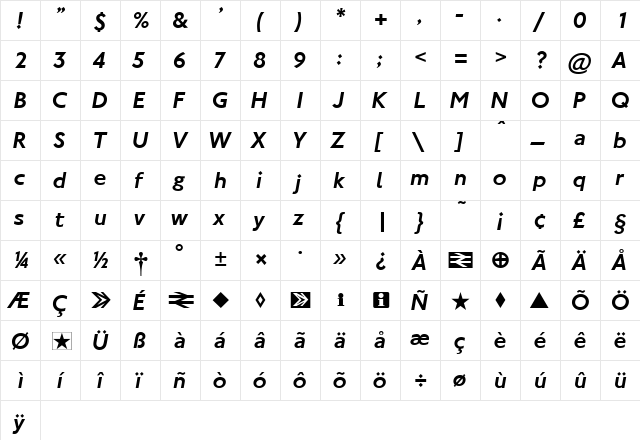
NJMediumItalic Regular
NJMediumItalic is a composed and adaptable typeface that performs quietly and consistently across a wide range of design contexts. The dynamic lean of this cut emphasises speed and emphasis in any layout.
Pro Tip: Use NJMediumItalic for emphasis, pull quotes, and subheadings where its slanted energy can add rhythm to the layout.